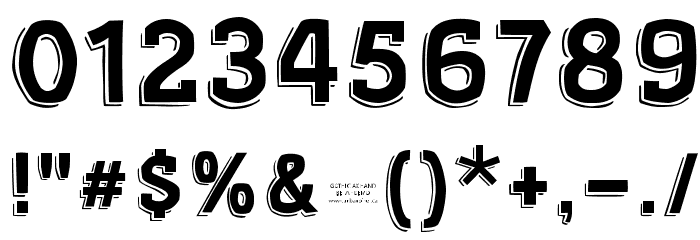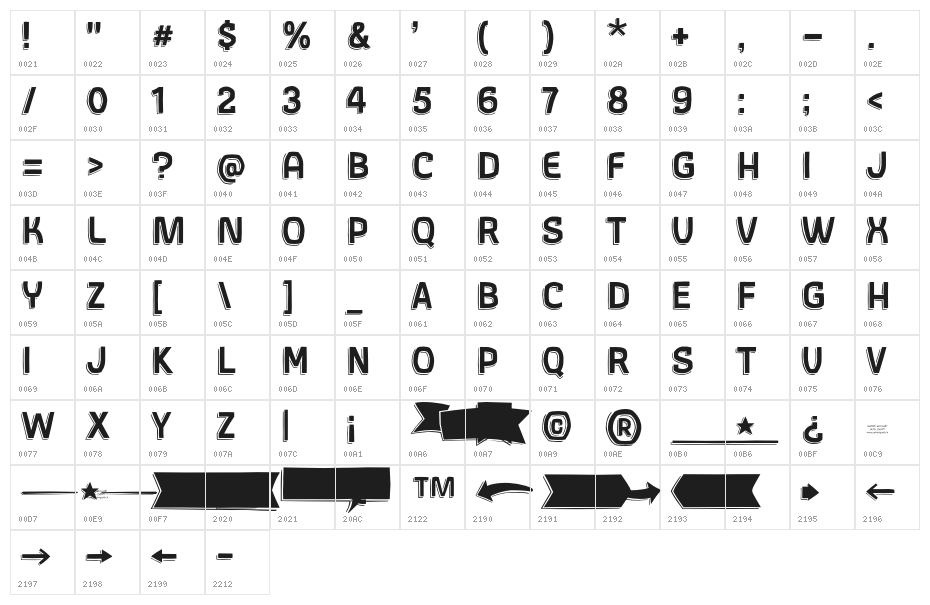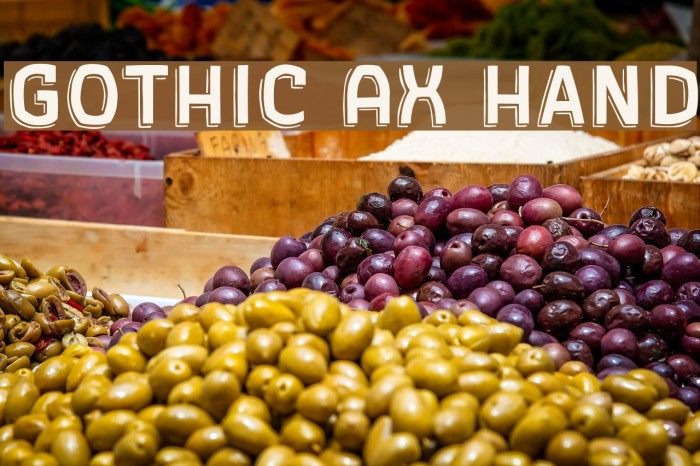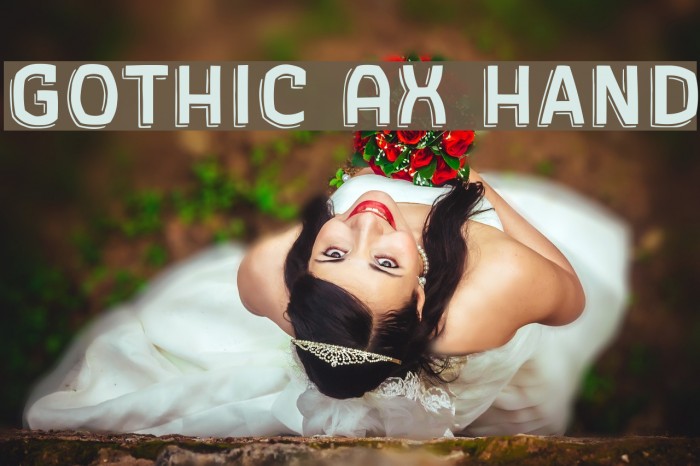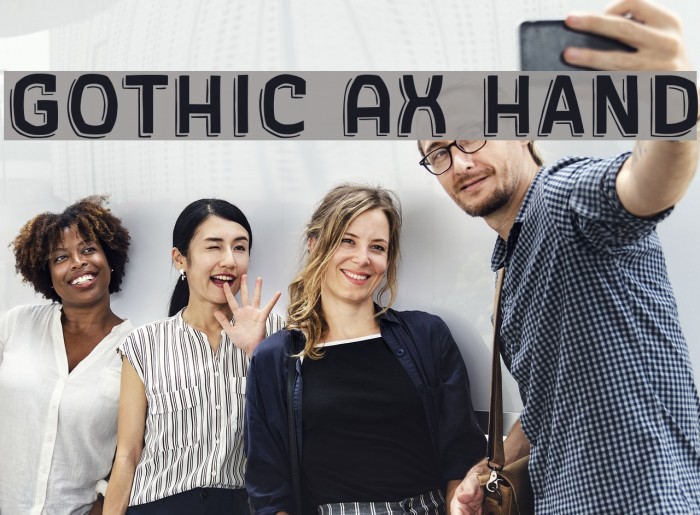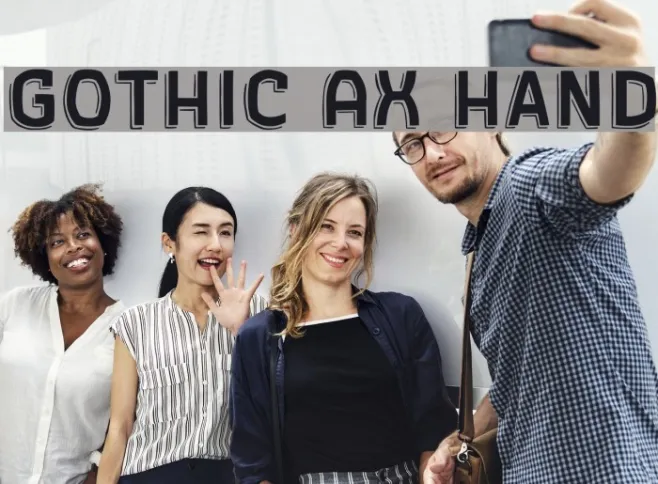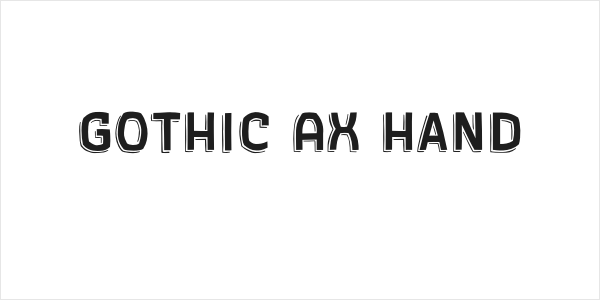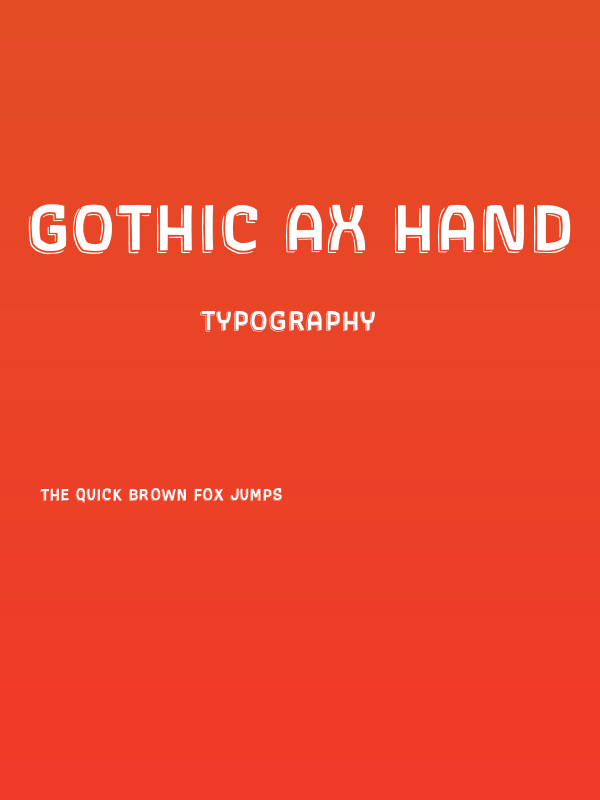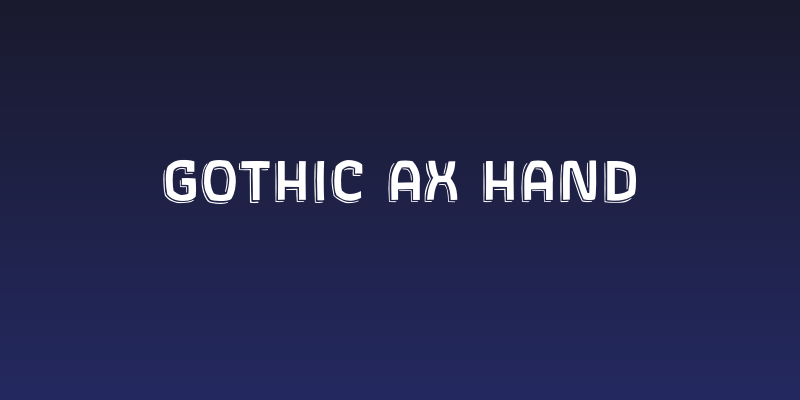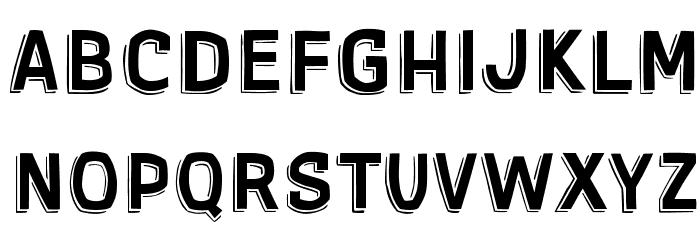
Gothic AX Hand Font
Gothic AX Hand Description
This font features bold, blocky characters with a three-dimensional effect, achieved through the use of shadowing and outlines. The uppercase letters are prominent and commanding, making them ideal for attention-grabbing headlines. The numbers and special characters maintain the same bold style, ensuring consistency across different uses. The font's design is reminiscent of vintage signage, with a modern twist that adds depth and character. The spacing between characters is normal, allowing for readability while maintaining a strong visual impact.
| Proposed Projects | Ideal for poster designs, branding projects, and any creative work that requires a strong, eye-catching typeface. |